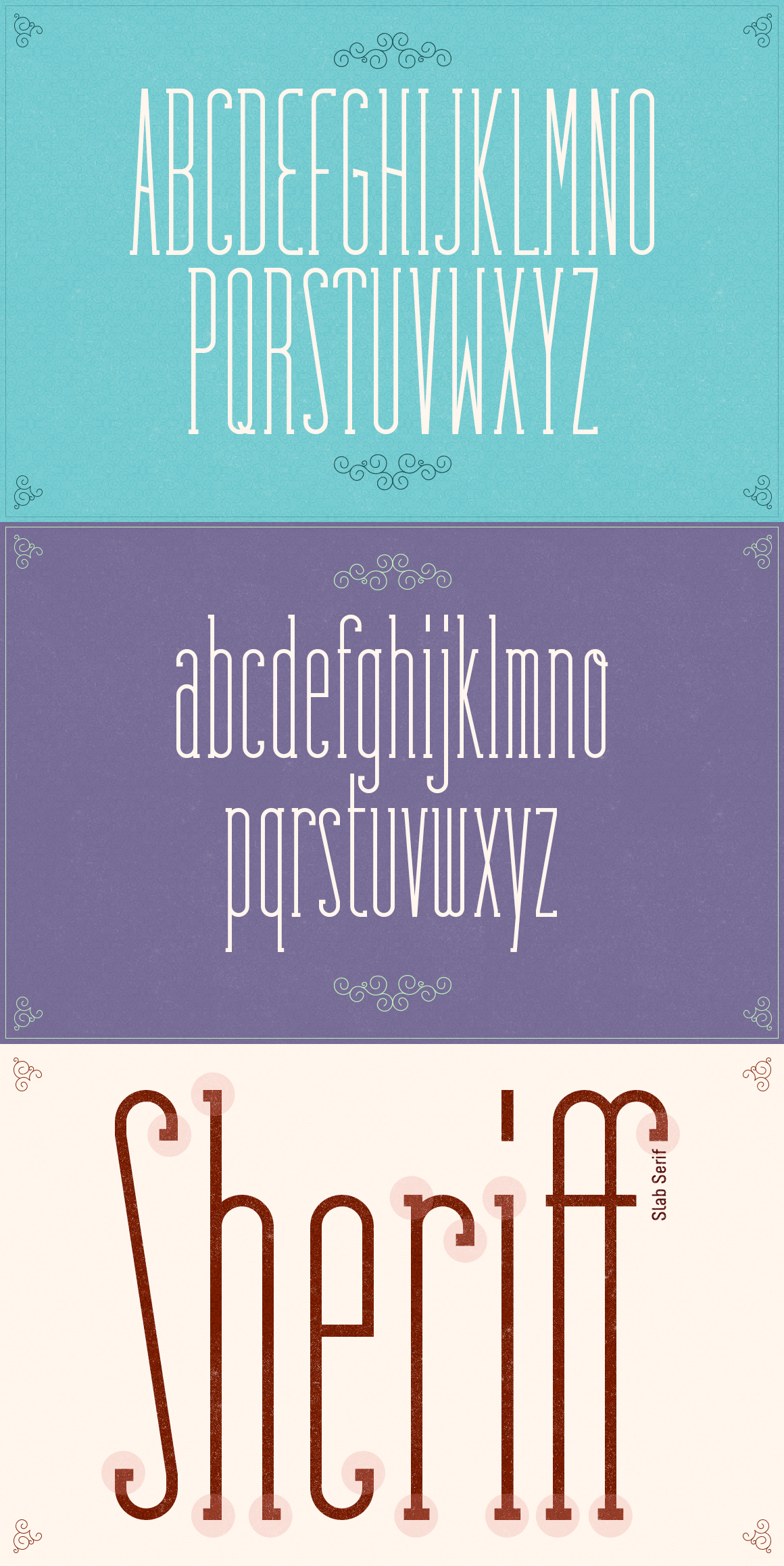
Fabuleuse Slab Font + Free Bonus
“Fabuleuse Slab” is a one-style font that features a thin, condensed and high cap height. This gives the font a distinct retro look & bohemian feeling that is great for logos & branding, packaging, titles, magazines, posters, signs, shirts, and scrapbooking.
This display font comes in Capital letters as well as Lowercases. It also comes equipped with Ligatures, Numbers, Punctuation Marks, Diacritic Marks and a well stocked supply of special characters.
Glyph coverage: Western Europe, Central Europe, Baltic, Turkish and Romanian.